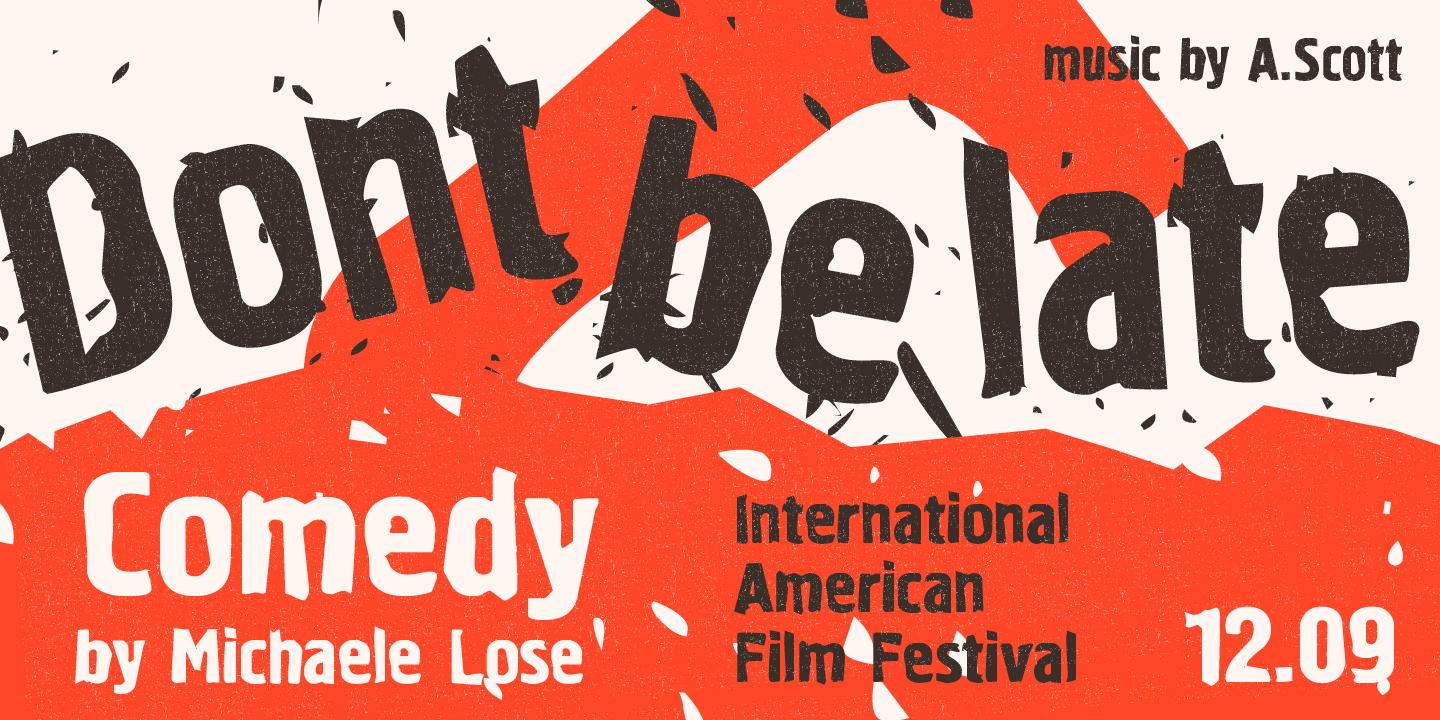
Graffiti Font Free Download is a bold, urban-inspired typeface that captures the rebellious spirit and vibrant energy of street art. With its dynamic, hand-drawn style and rough edges, this font is perfect for posters, music covers, skateboarding brands, and any project that needs a raw, expressive look.
This font adds a sense of movement and attitude, making your designs stand out with an authentic urban vibe. Graffiti’s versatile style works well in large headlines and display text, ensuring maximum impact and visual interest.